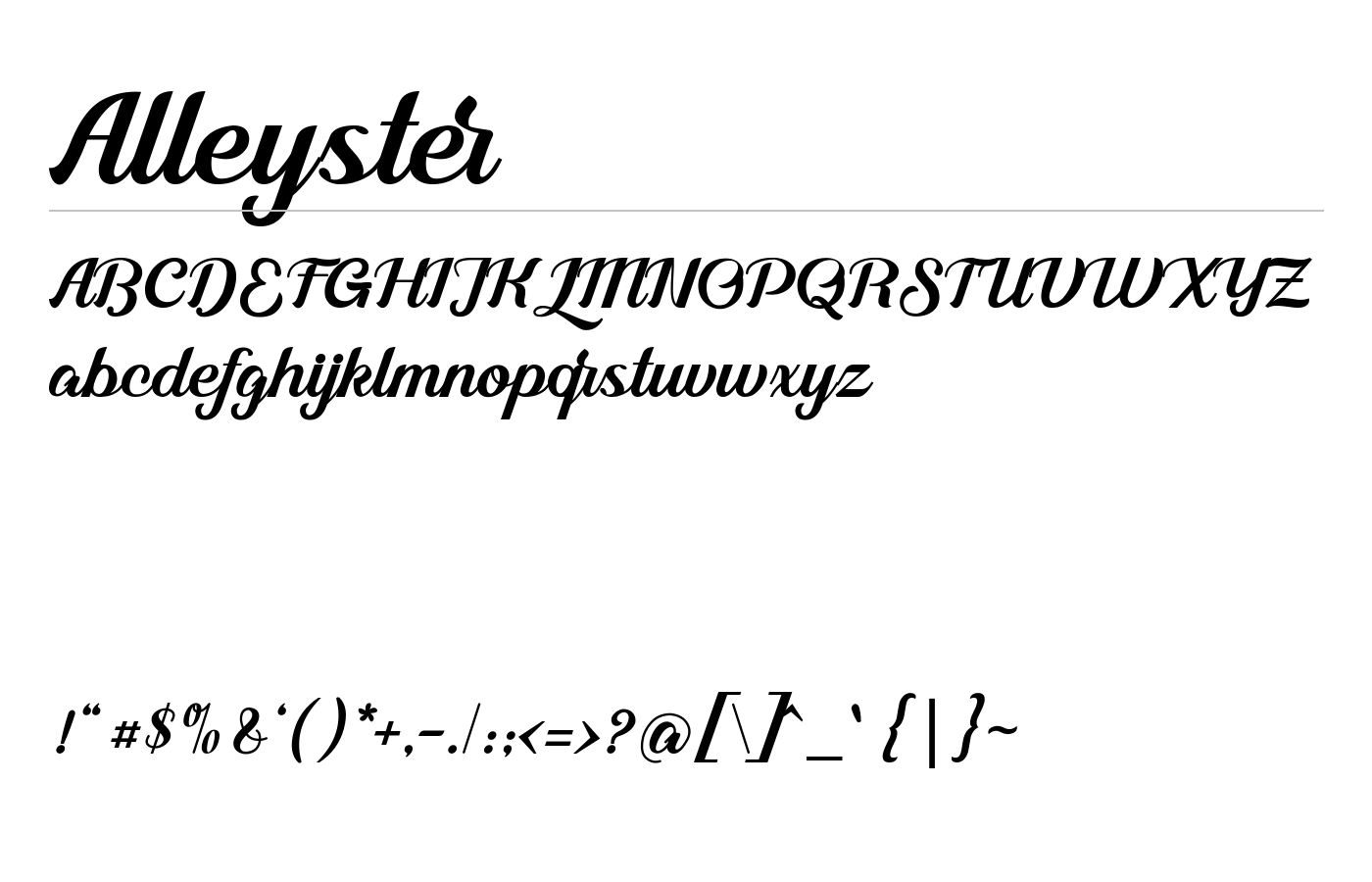
Alleyster is a graceful script font with a modern calligraphic style, featuring smooth, flowing strokes and moderate contrast between thick and thin lines. Its elegant curves and distinctive letterforms convey a refined yet approachable personality, making it ideal for luxury branding, invitations, and stylish headlines. This font works well where a sense of sophistication and charm is desired without losing readability.
Alleyster Font
About Alleyster Font
| Font family | Alleyster Font |
| Designer | Nurf Designs |